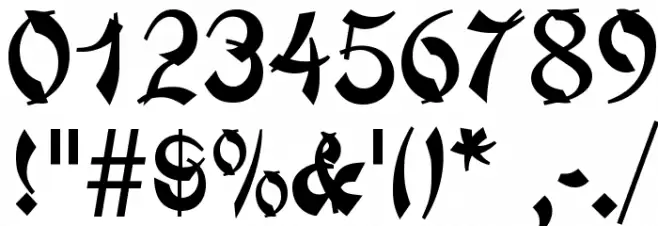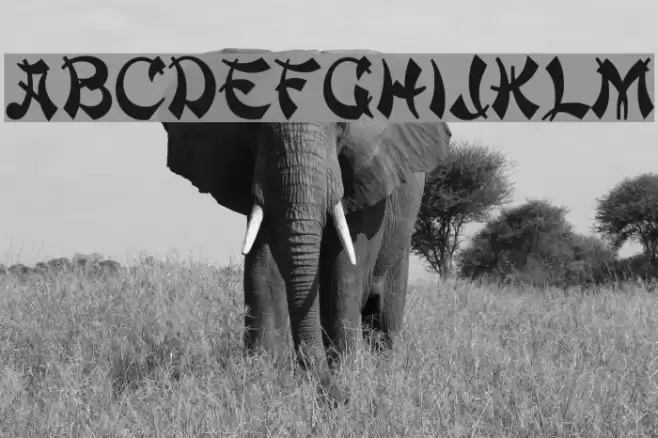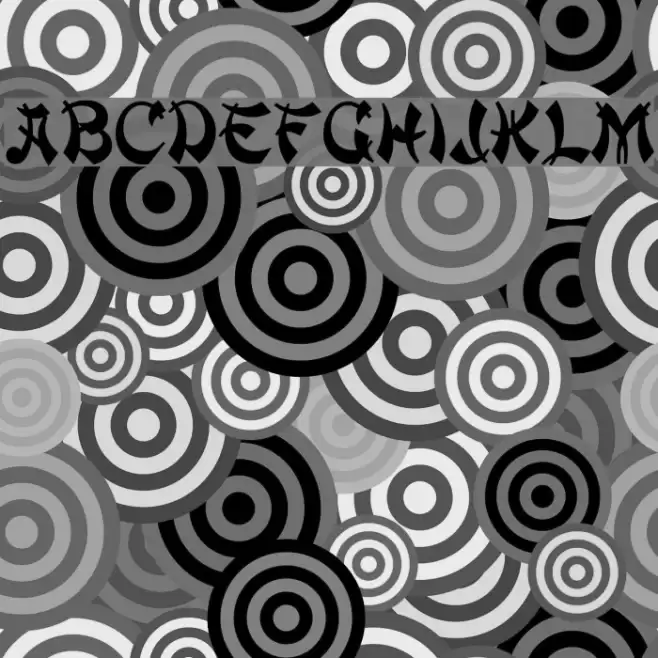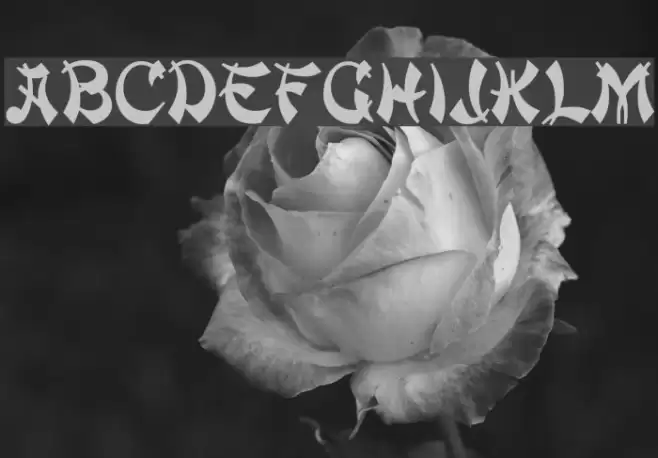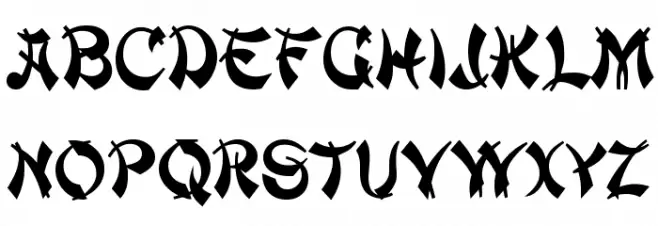
Deng Thick Font
Deng Thick Description
This font is a bold and striking display typeface with a unique, edgy style. The characters are thick and have a sharp, angular design that gives them a dynamic and aggressive appearance. The font features high contrast between thick and thin strokes, enhancing its dramatic effect. It includes a full set of uppercase and lowercase letters, numbers, and a variety of special characters. The design is reminiscent of gothic or medieval styles, making it suitable for projects that require a strong, impactful look.
| Overall Style | Gothic, Decorative |
| Proposed Projects | Ideal for posters, album covers, video game titles, and branding that requires a bold statement. |